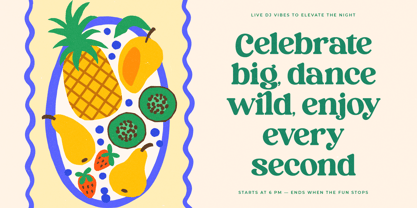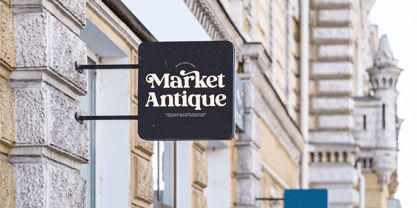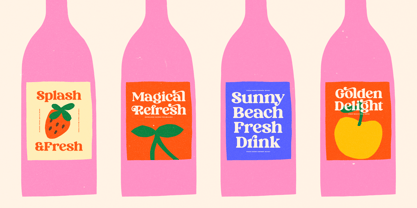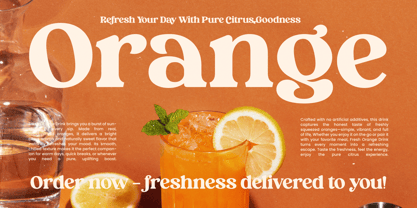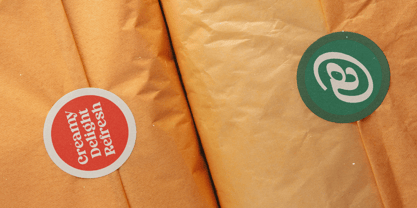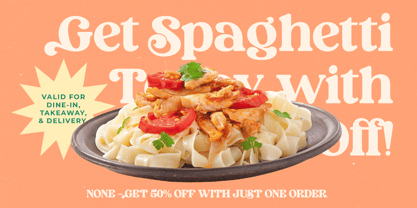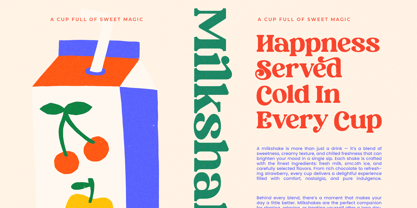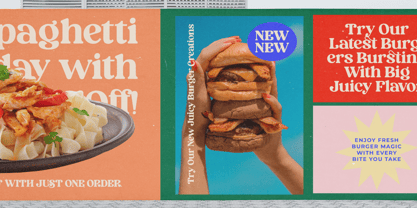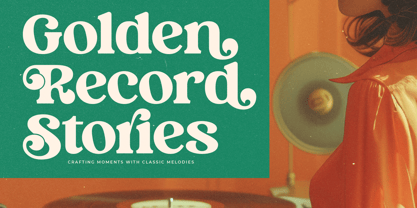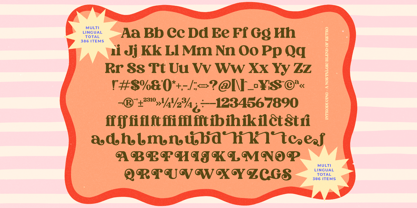
Aroma Vintage
The Aroma Vintage Font Family was designed by Heru Utama Putra and published by Timelesstype Studio. Aroma Vintage contains 2 styles and family package options.
Aroma Vintage - Retro Display Serif , from Timelesstype , Suitable for any projects such as: logos, branding projects, homeware designs, product packaging, mugs, quotes, posters, shopping bags, t-shirts, book covers, name card, invitation cards, greeting cards, label, photography, watermark, special events, and all your other luxury and beautiful projects that need a Luxury Serif taste.